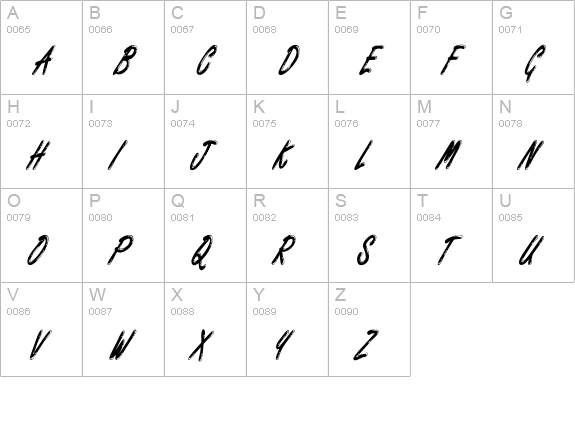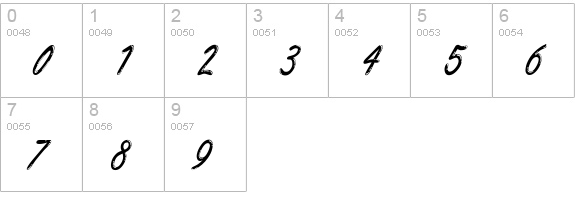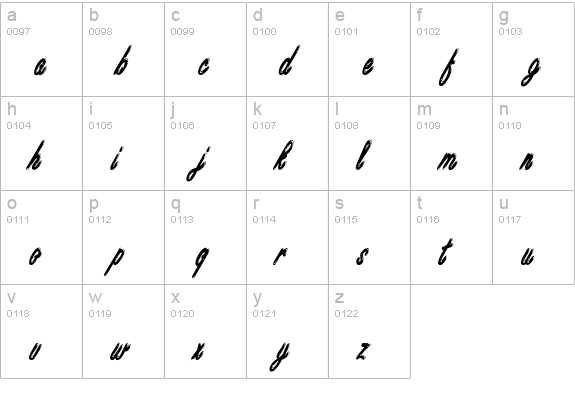
Encino Condensed Italic is a distinctive, condensed-width, italic variant in the Encino typeface family \xE2\x80\x94 well suited to design and typography projects.
Encino Condensed Italic is a modern and sleek font that exudes sophistication and elegance. Its slanted design adds a touch of dynamism and flair, making it perfect for adding a stylish touch to any project. The condensed form of the font allows for a clean and streamlined look, making it ideal for headlines, logos, and other design elements where space is limited. The italicized version of Encino Condensed adds a touch of drama and emphasis, making it stand out while still maintaining its refined aesthetic. The sleek and contemporary feel of this font makes it versatile and suitable for a wide range of design applications. Best of all, Encino Condensed Italic is available for free download at FontsMarket.com, making it easily accessible for designers and creatives looking to enhance their projects with a touch of sophistication. Don't miss out on this opportunity to elevate your designs with the stylish and modern Encino Condensed Italic font.